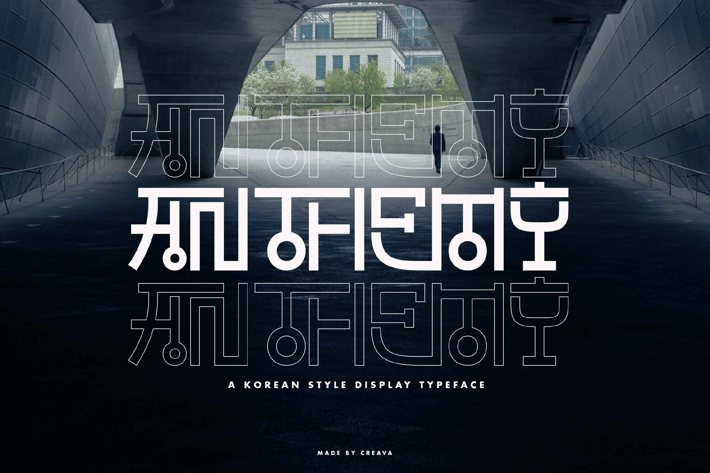
Anthemy Korean Display Font
Anthemy is a Korean-style font that brings a unique and modern touch to your designs. With its clean lines and contemporary aesthetic, this font is suitable for K-pop merchandise, album covers, Korean restaurant branding, fashion magazines, posters, and social media graphics. Its stylish appearance makes it ideal for projects that require a sophisticated yet trendy look.